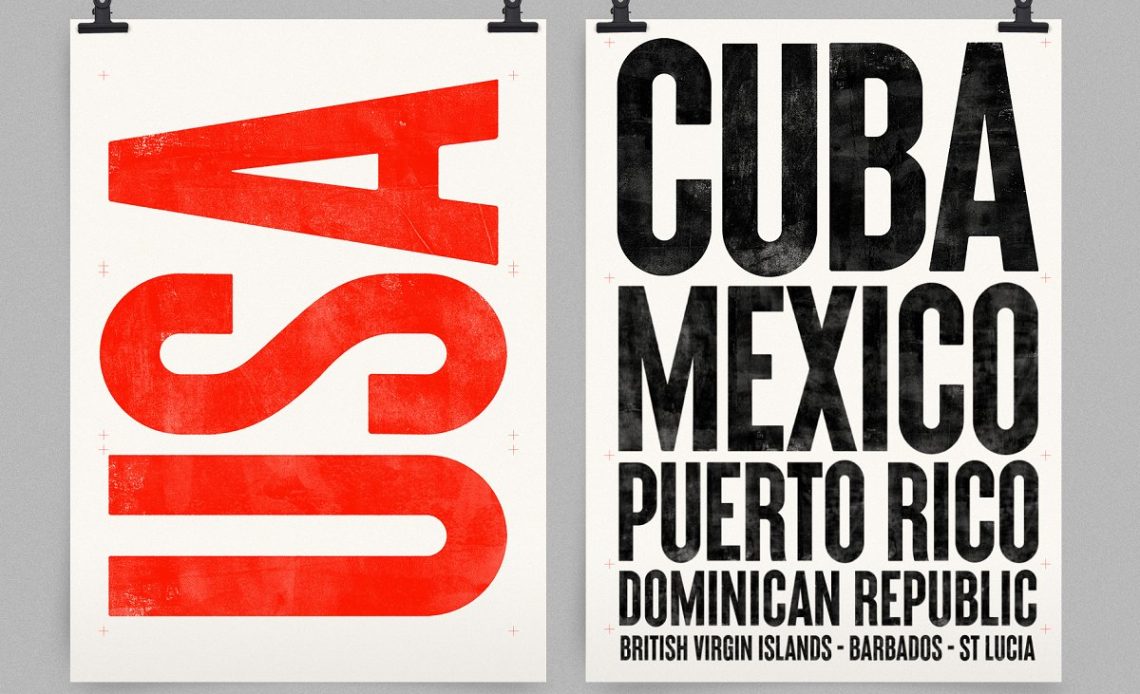
Introducing the Brixton SVG Handprinted Typefamily Font, created by Ellen Luff. This stunning typeface is a celebration of the original letterpress style and all its beautiful imperfections. Its bold, narrow, and powerful shapes lend themselves to strong designs, while the textures give it an authentic voice.
With two SVG letterpress styles, Wood and Lead, Brixton offers an incredible level of detail and texture never before possible. These fonts can be used in any color and on any background, making them perfect for any project.
The Brixton typeface includes two font formats to suit everyone's situation. The Brixton SVG Lead has a soft, original tonal texture with density variants and original nicks and grit, while the Brixton SVG Wood is rich in rough texture and true wooden grain. Both styles have completely different transparent textures with incredible detail.
The typeface also includes vector counterparts, making it a versatile letterpress font for everyone. The use of color reveals Brixton's full potential, while powerful designs wishing to highlight the gritty textures look great in black and white too.
Brixton is an all caps font with two alternatives for every letter, maintaining a custom-made look without obvious doubles. It also includes ALL Central European language support, making it accessible to a wider audience.